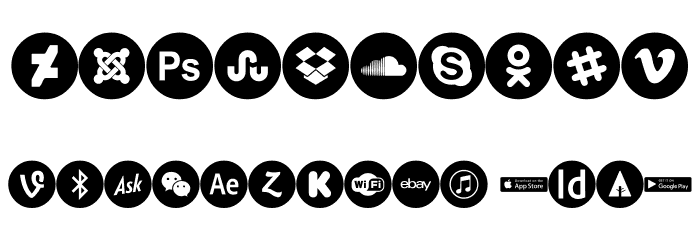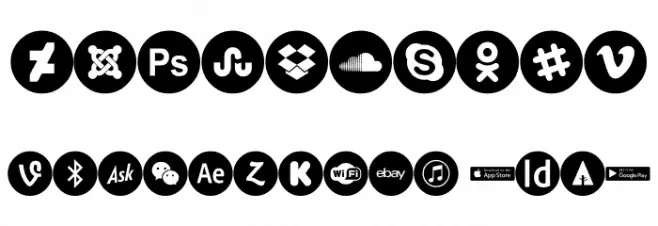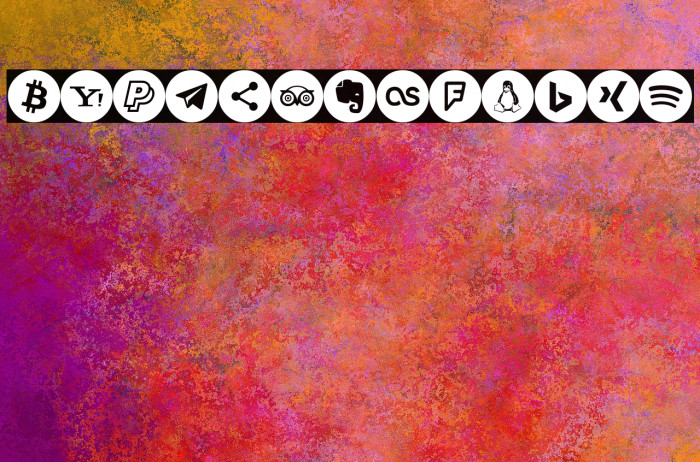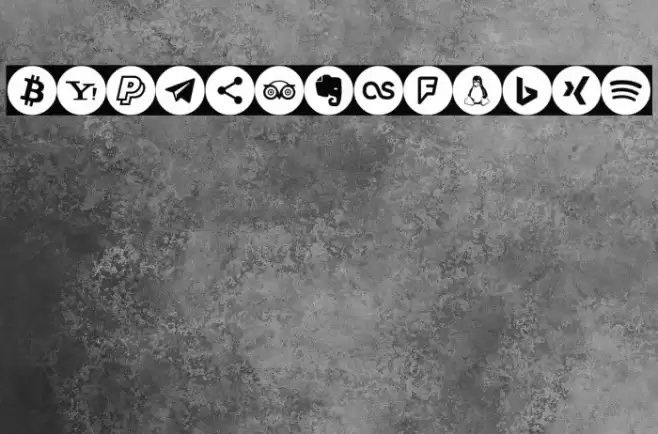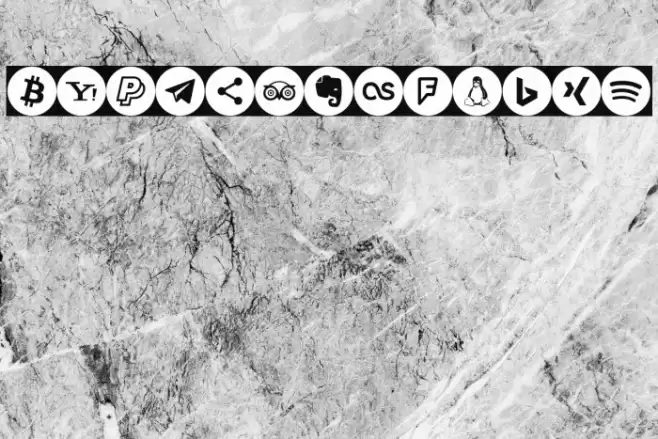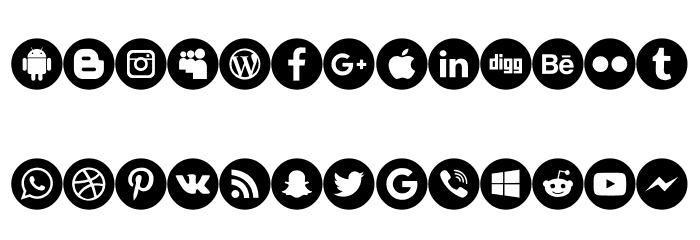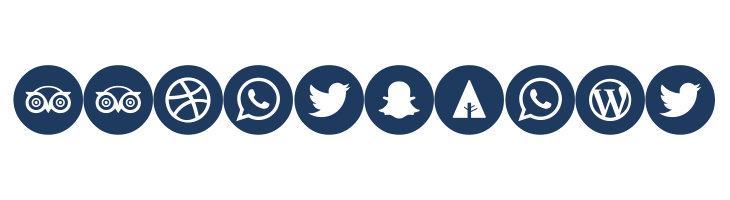
font 100 icons Font
font 100 icons Description
A collection of monochrome, circular social media and brand icons, each featuring a white logo or symbol centered within a solid black circle. The icons are simple, flat, and highly recognizable, designed for clarity and legibility at small sizes.
Minimalist, circular monochrome icon set for brands and social media from Uncategorized fonts.
- Proposed Projects: Websites, mobile apps, UI/UX design, presentations, social media graphics, branding kits.
- Overall Style: Modern, Minimalist
- Use Case: Icons, UI elements, navigation, branding, social media links